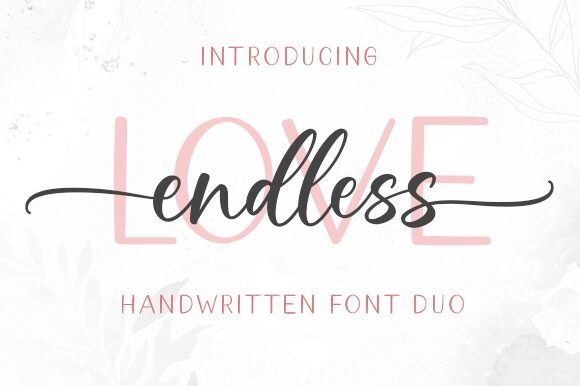
Love
Love, the latest display font created by Graphix Line Studio, is a perfect choice for all your design needs. Its semi-light weight adds a touch of elegance and sophistication to any project. Embrace creativity and use Love for branding, advertising, packaging, or social media graphics. This font's unique style is perfect for wedding invitations, greeting cards, posters, and even book covers. Whether it's a romantic message or an edgy design you're after, Love has got you covered. Make your designs stand out with Love – the ideal font for all your creative endeavors!